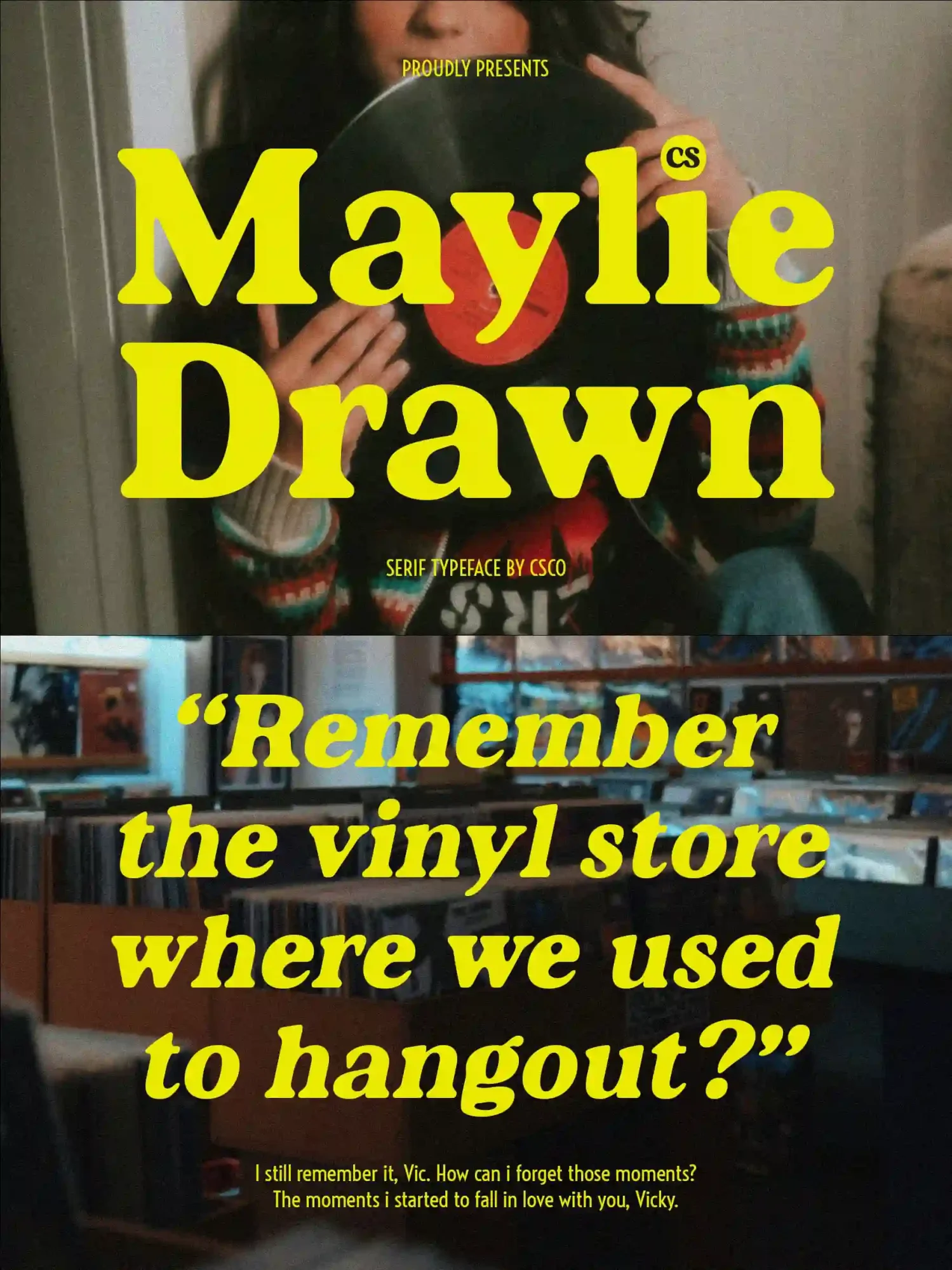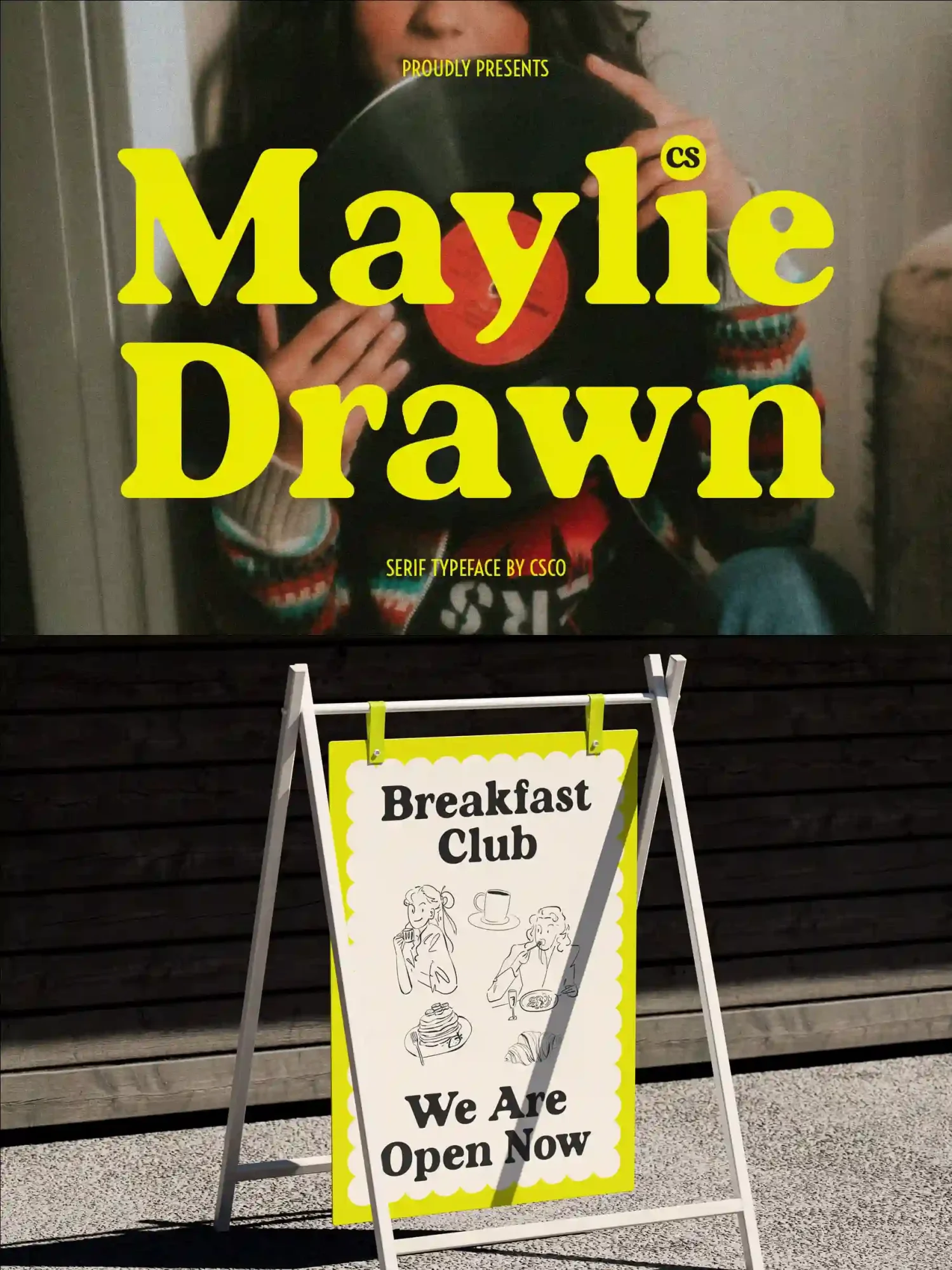
CS Maylie Drawn – Bold, Funky, and Playfully Retro
Funky 90s Retro Style
CS Maylie Drawn is a classic serif font featuring bold, rounded letterforms that radiate a playful and cheerful 90s retro vibe. Its fun, approachable style brings energy and character to every design, making it perfect for projects that want to stand out with a nostalgic yet fresh appeal.
Handmade Charm with Artistic Texture
Enhanced with a subtle drawn effect, each letter carries a handcrafted touch that adds creativity and expressiveness. The combination of bold shapes, rounded ends, and textured details gives the font a lively, artistic personality that feels both fun and distinctive.